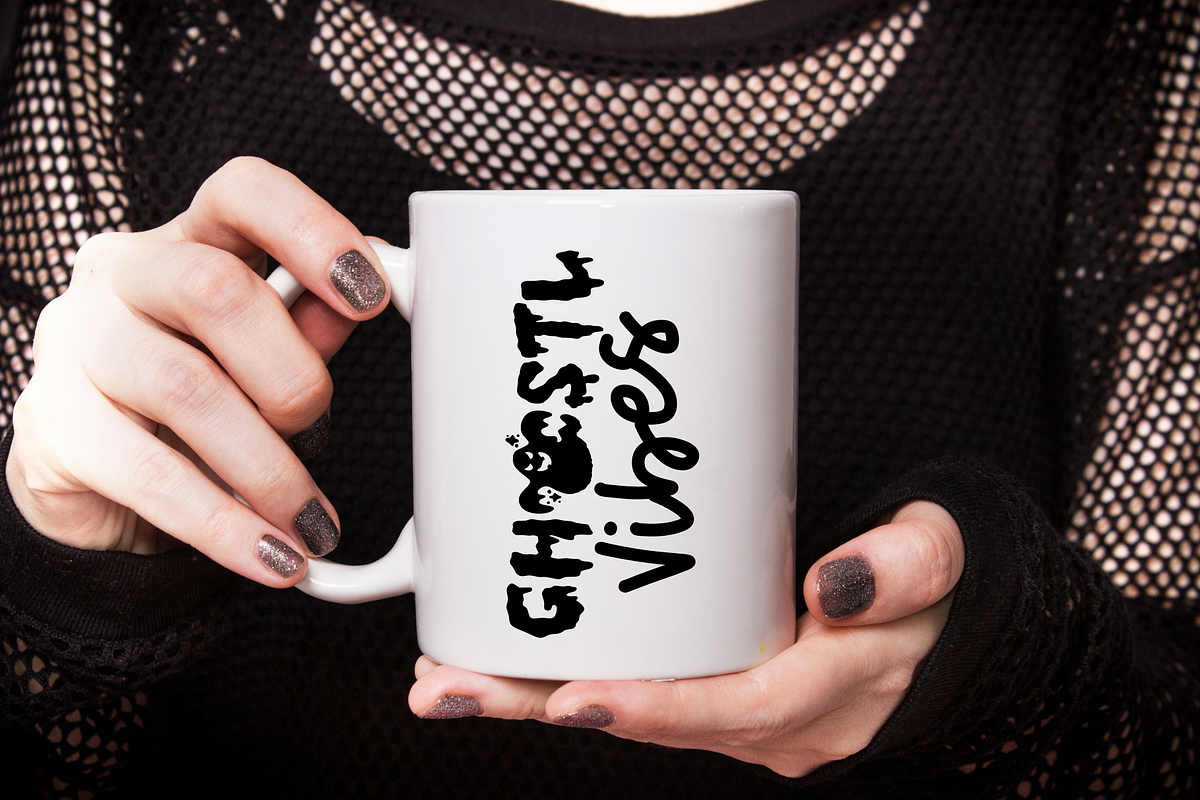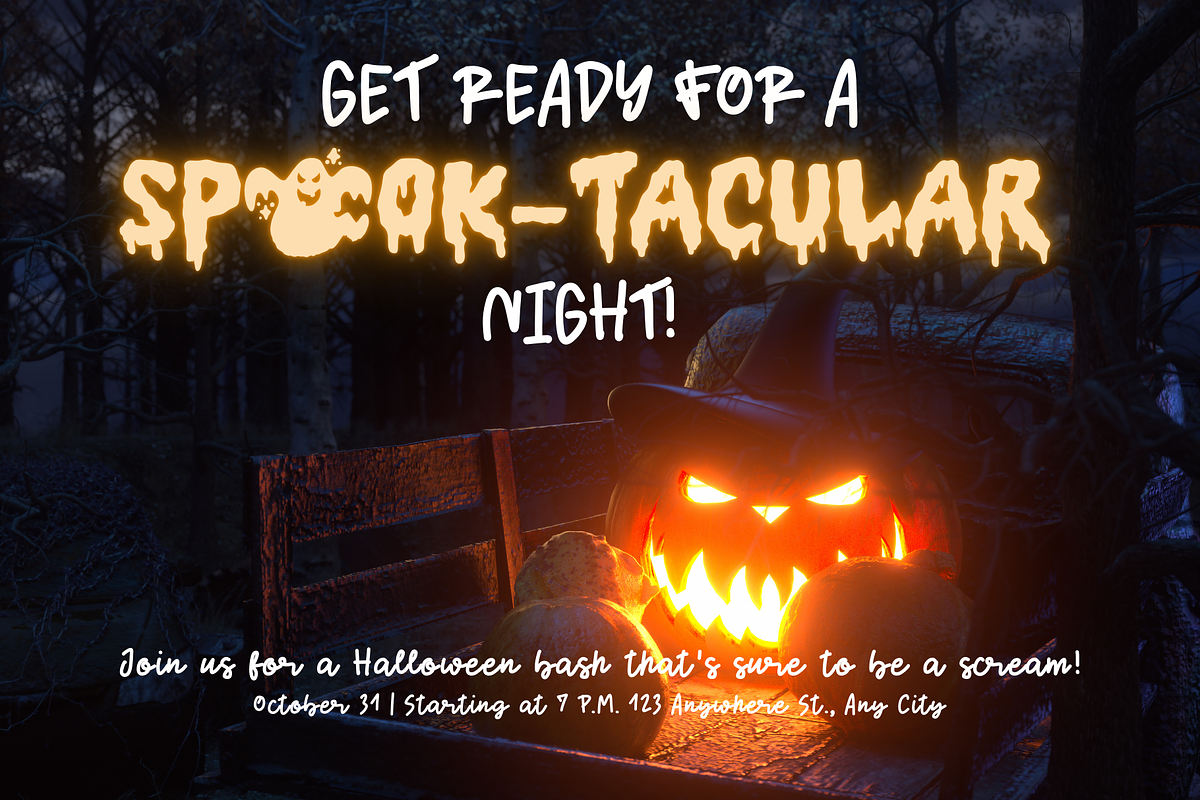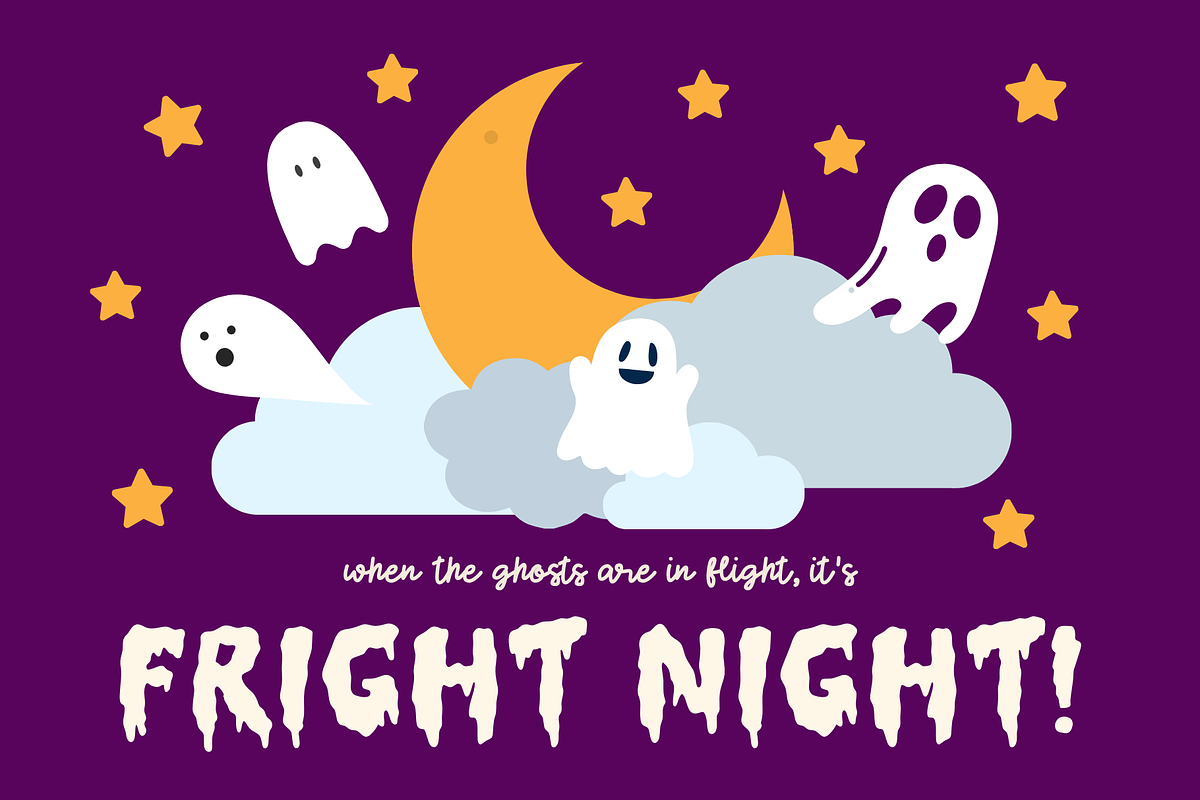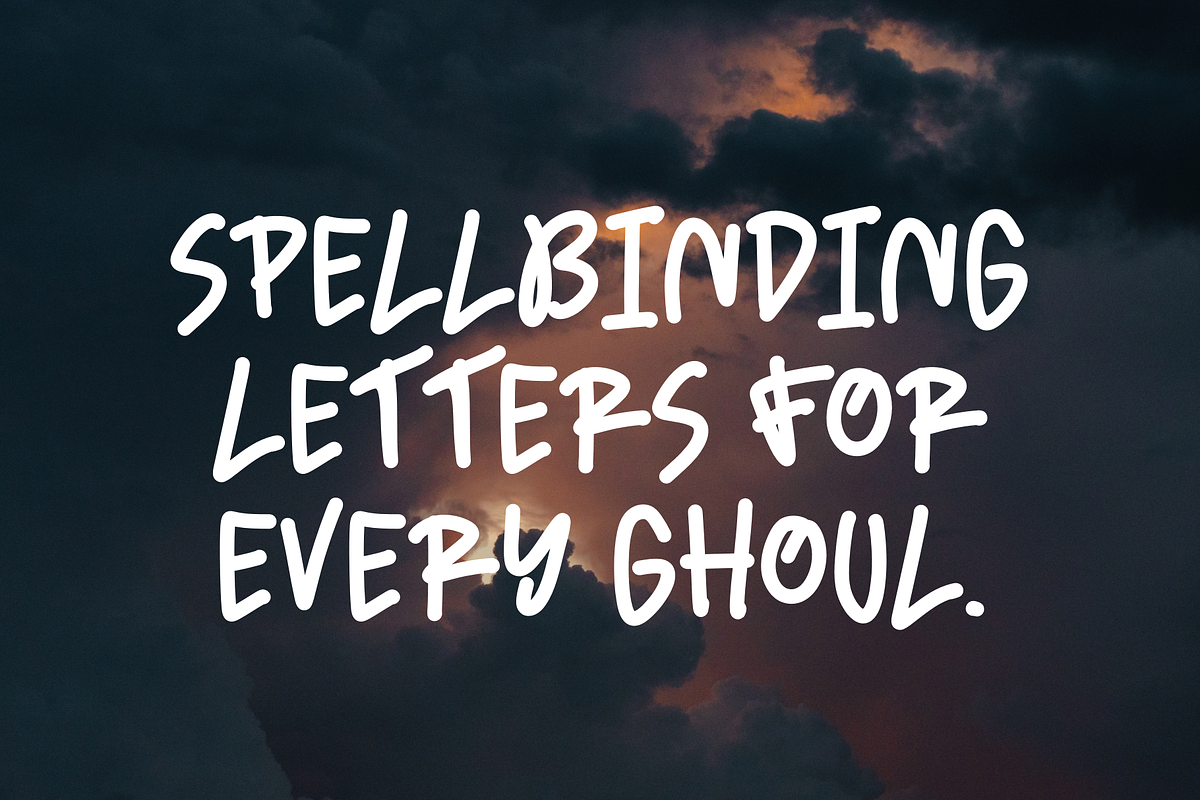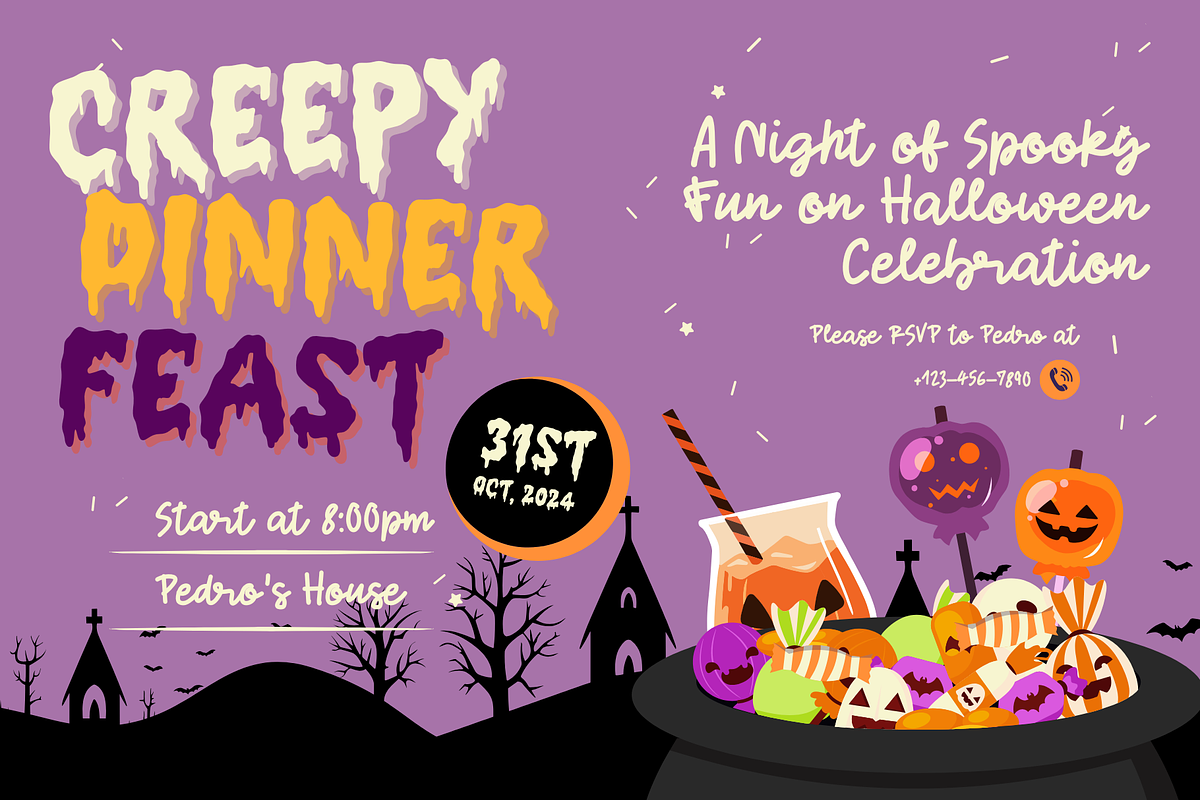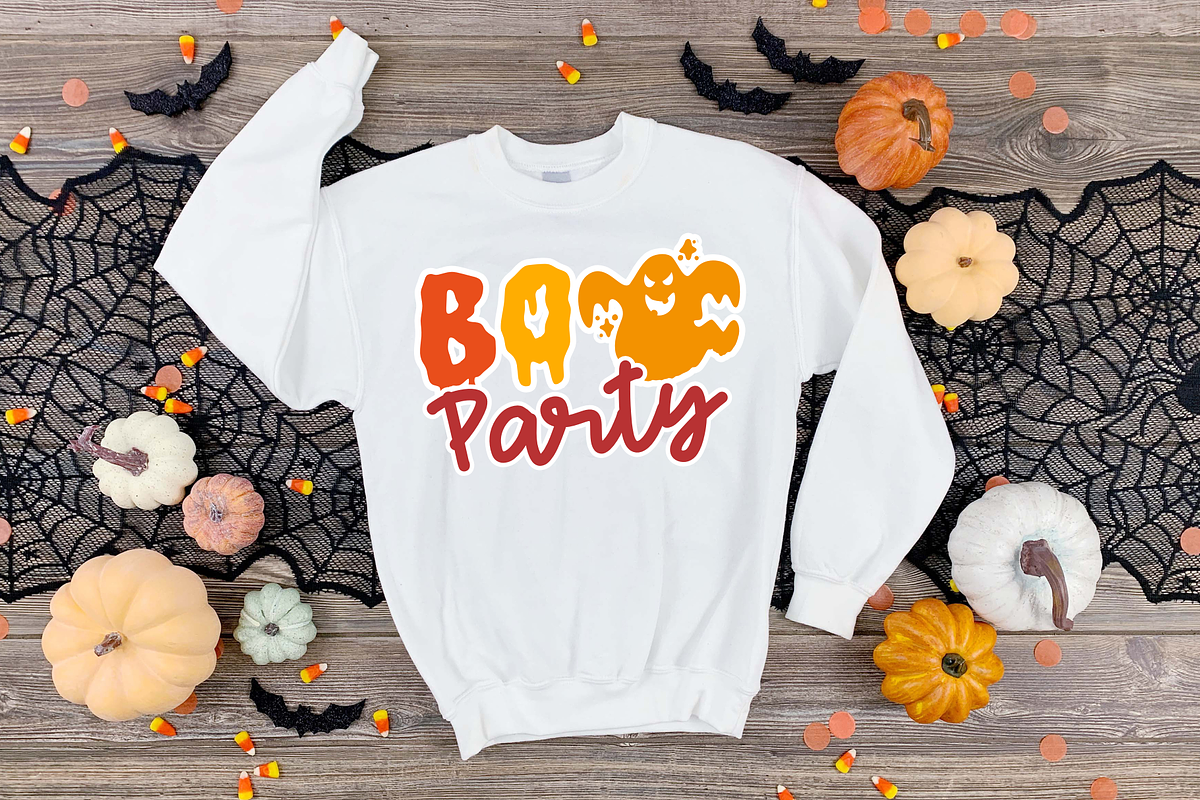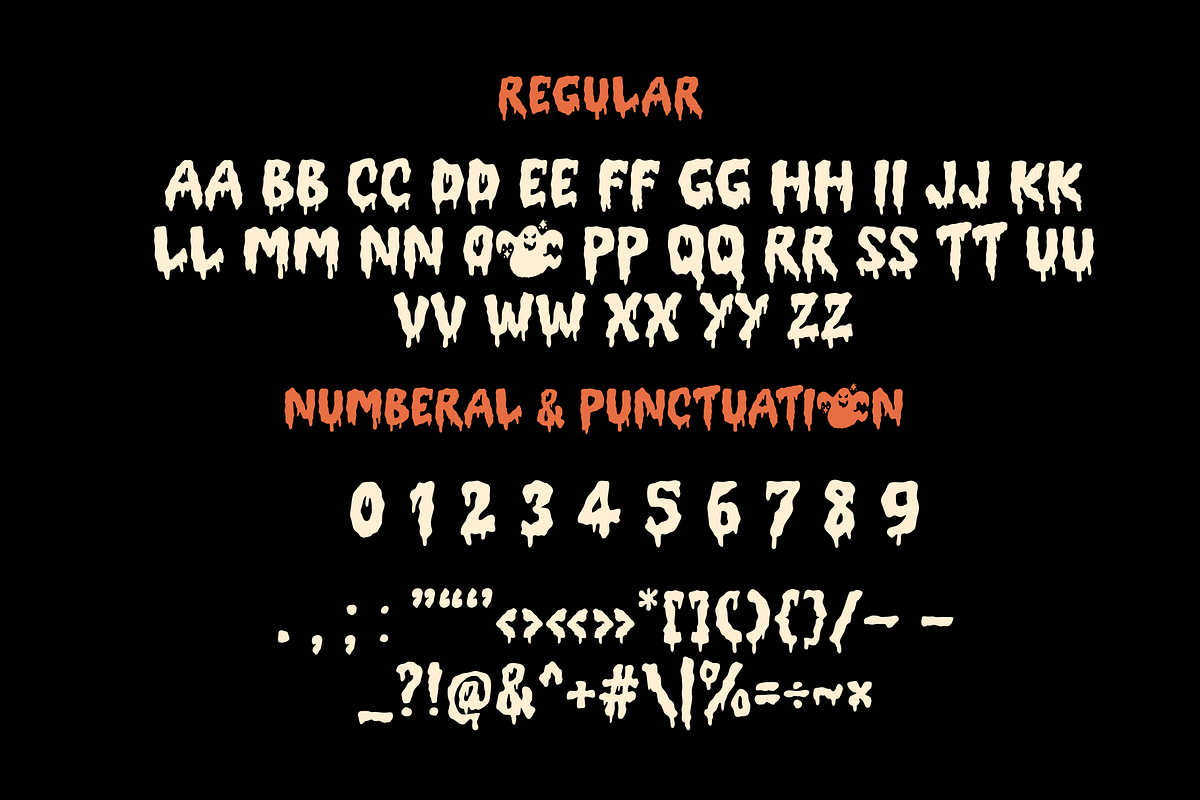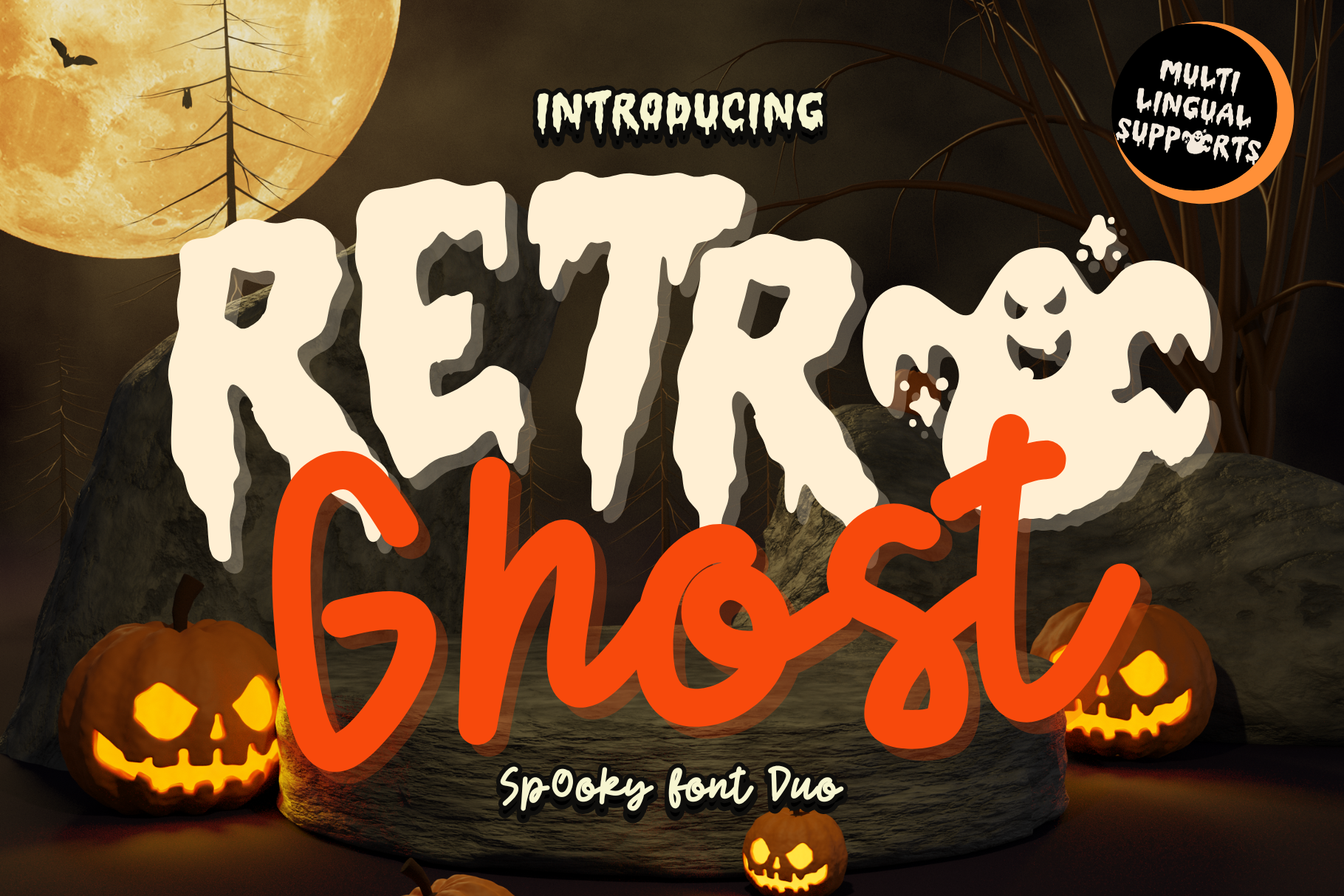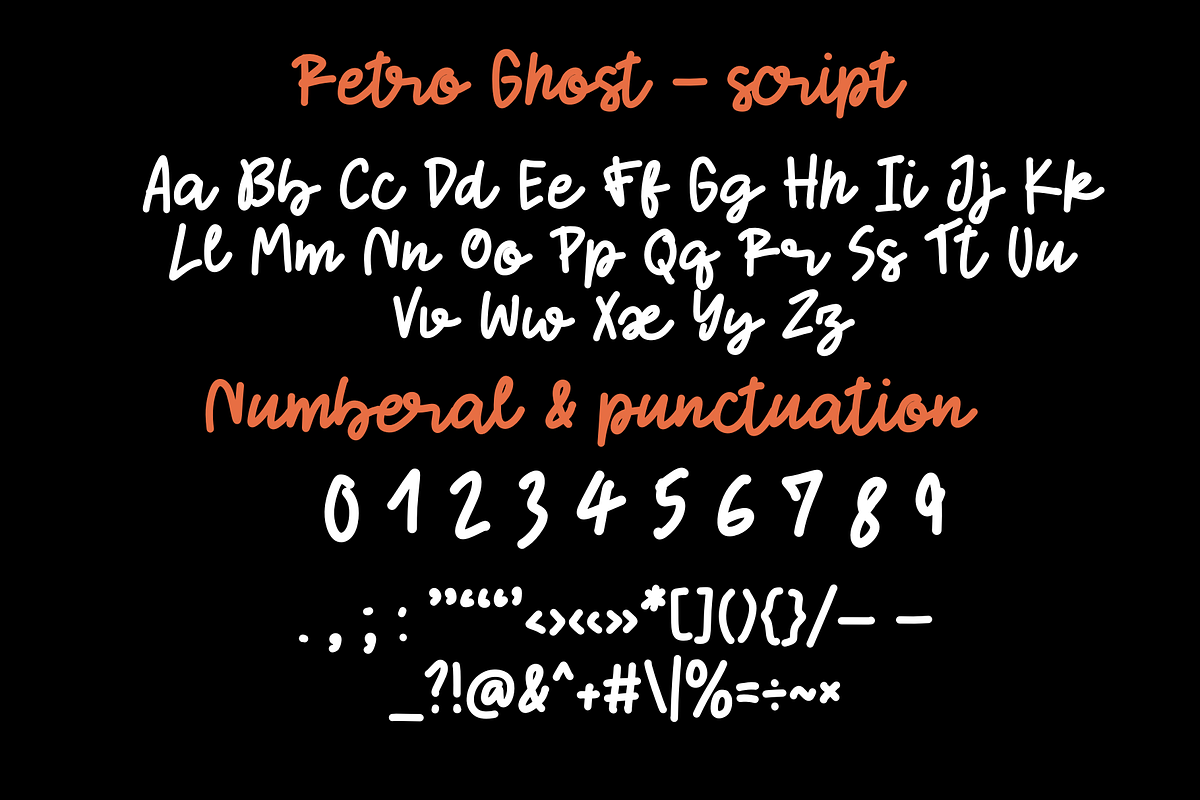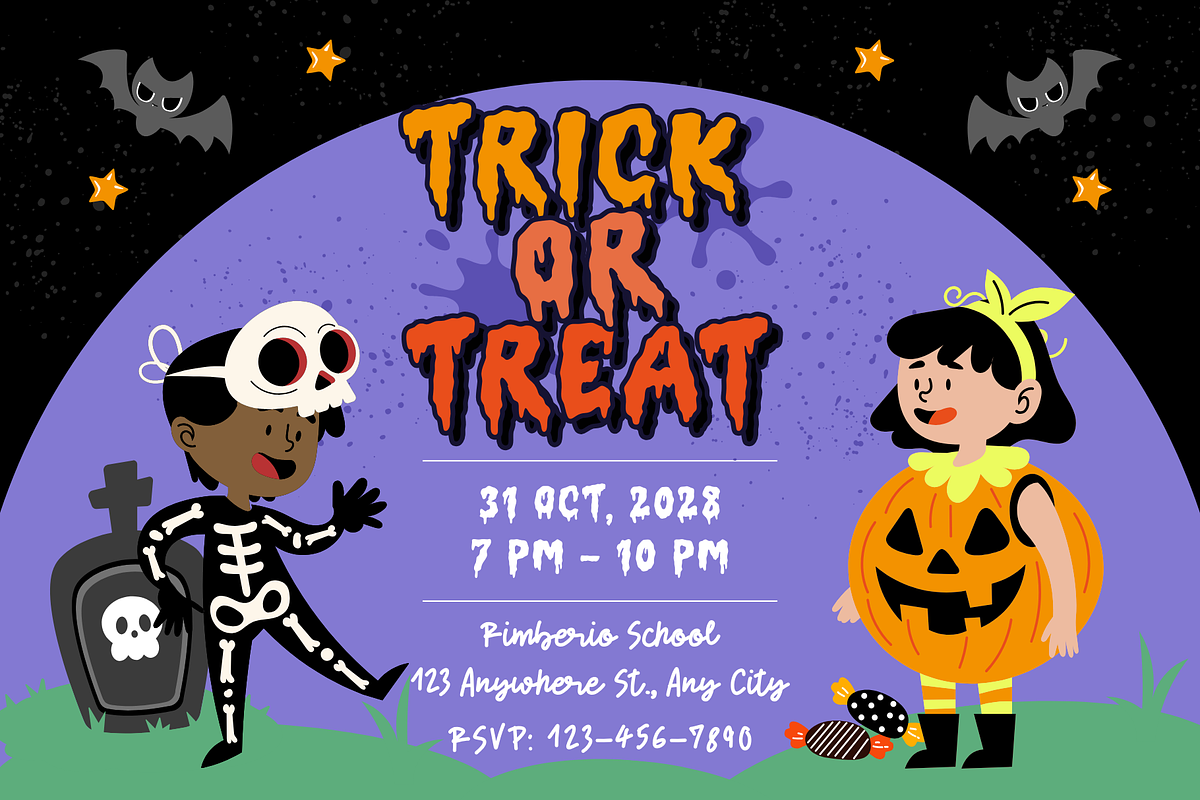
Retro Ghost is a Halloween duo font
Retro Ghost is a Halloween retro duo font, combining a display and handwritten typeface that exudes a cool and groovy aesthetic. Ideal for all your hippie-inspired designs, It embodies playfulness and authenticity and is the perfect choice for all your favorite projects, or even for blog posts, logos, branding, ads, invitations, greeting cards, planners, photo albums, decorations, and much more. Add it to any of your designs, and enjoy the results!